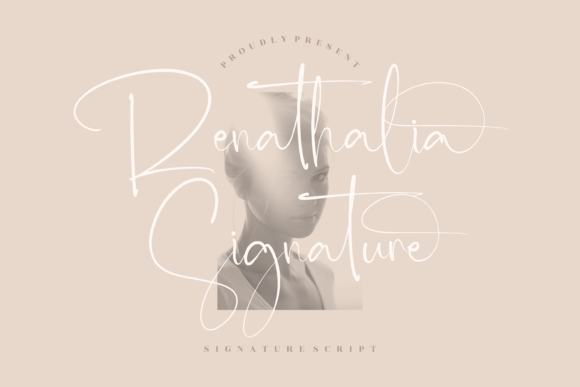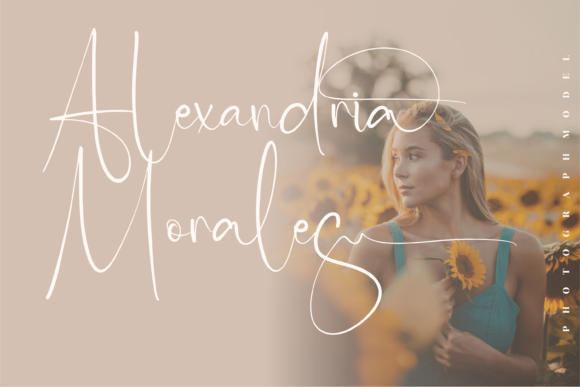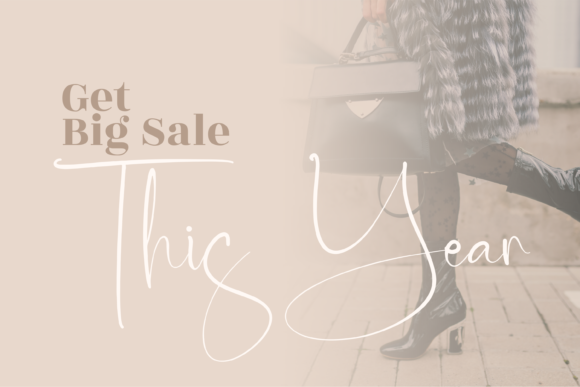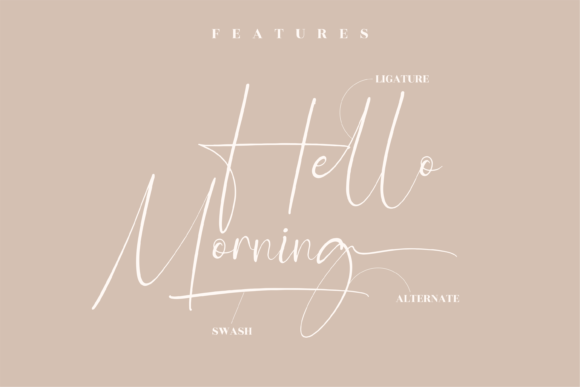
About Renathalia Signature Font
Renathalia Signature is a beautiful signature script font suitable for any projects such as logos, branding projects, homeware designs, product packaging, mugs, quotes, posters, shopping bags, t-shirts, book covers, name cards, invitation cards, and greeting cards. It’s also a perfect fit for labels, photography, watermark, special events, and all your other lovely projects that need a beautiful script taste.